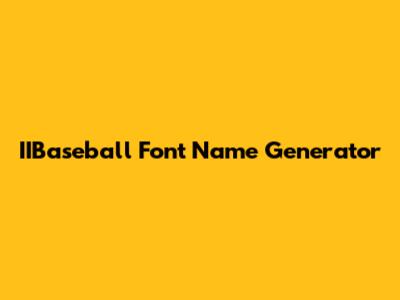
- Find a Reputable Generator: The first step is to find a reliable and user-friendly IIBaseball font name generator. A quick Google search should turn up several options. Look for generators that have positive reviews and a clean, intuitive interface. Some generators may be free, while others may require a subscription or a one-time payment. Choose one that fits your needs and budget.
- Enter Keywords or Parameters: Once you've found a generator, you'll typically be prompted to enter some keywords or parameters. These could include words related to baseball (like "pitcher," "stadium," or "bat"), stylistic elements (such as "bold," "script," or "vintage"), or any other terms that you want to incorporate into your font name. The more specific you are with your keywords, the more tailored the results will be.
- Generate Names: After entering your keywords, simply click the "Generate" button (or a similar command) to start the process. The generator will then use its algorithms to combine your keywords and create a list of potential font names. The number of names generated will vary depending on the generator and the parameters you've entered.
- Review and Refine: Take some time to carefully review the generated names. Pay attention to how well they capture the essence of baseball and the style of your font. Do they sound catchy and memorable? Do they accurately reflect the personality of your font? If you're not completely satisfied with the initial results, you can always tweak your keywords or generate a new batch of names.
- Select Your Favorite: Once you've found a few names that you like, narrow down your options to the one that you feel is the best fit. Consider factors such as memorability, relevance, and uniqueness. It's also a good idea to check if the name is already in use by another font to avoid any potential copyright issues.
- Finalize and Register (Optional): After selecting your font name, you may want to finalize it by checking its availability as a domain name or social media handle. This can be useful if you plan to market your font online. You can also consider registering your font name with a trademark to protect your intellectual property.
- Relevance is Key: First and foremost, make sure the name is relevant to baseball. It should evoke the feeling of the sport, whether it's through direct references to baseball terms (like "Slider" or "Dugout") or more abstract allusions to the energy and excitement of the game. A name that has nothing to do with baseball will just confuse people and miss the mark.
- Keep it Short and Sweet: Shorter names are generally easier to remember and more impactful. Aim for a name that is concise and to the point. Avoid overly long or complicated names that are difficult to pronounce or spell. Think of iconic font names like "Helvetica" or "Arial" – they're simple, memorable, and easy to say.
- Uniqueness Matters: In a sea of fonts, you want yours to stand out. Choose a name that is original and distinctive. Avoid generic or overused names that will get lost in the crowd. A unique name will help your font grab attention and make a lasting impression.
- Consider the Font's Style: The name should also reflect the style and personality of the font. Is it a bold and powerful font? A playful and whimsical font? Or a classic and elegant font? The name should align with the font's characteristics and communicate its intended use. For example, a bold font might have a name like "Powerhouse", while a script font might be called "Curveball Script."
- Say it Out Loud: Before settling on a name, say it out loud a few times. Does it sound good? Is it easy to pronounce? Does it roll off the tongue? A name that sounds awkward or difficult to pronounce may not be the best choice, even if it looks good on paper.
- Get Feedback: Don't be afraid to ask for feedback from others. Show your font and its potential names to friends, colleagues, or potential customers and get their opinions. Fresh perspectives can help you see things in a new light and make a more informed decision.
- Check for Availability: Before you get too attached to a name, make sure it's not already in use by another font. A quick Google search or a check on font databases can help you avoid any potential copyright issues. It's also a good idea to check if the name is available as a domain name or social media handle if you plan to market your font online.
- Home Run Slab: This name combines the excitement of hitting a home run with the bold, sturdy style of a slab serif font. It's a powerful and impactful name that evokes the feeling of a game-winning hit.
- Fastball Script: This name blends the speed and energy of a fastball with the fluid, elegant lines of a script font. It's a dynamic and stylish name that suggests both power and grace.
- Dugout Display: This name references the place where baseball players gather between plays, creating a sense of camaraderie and teamwork. The "Display" element indicates that the font is suitable for headlines and other prominent uses.